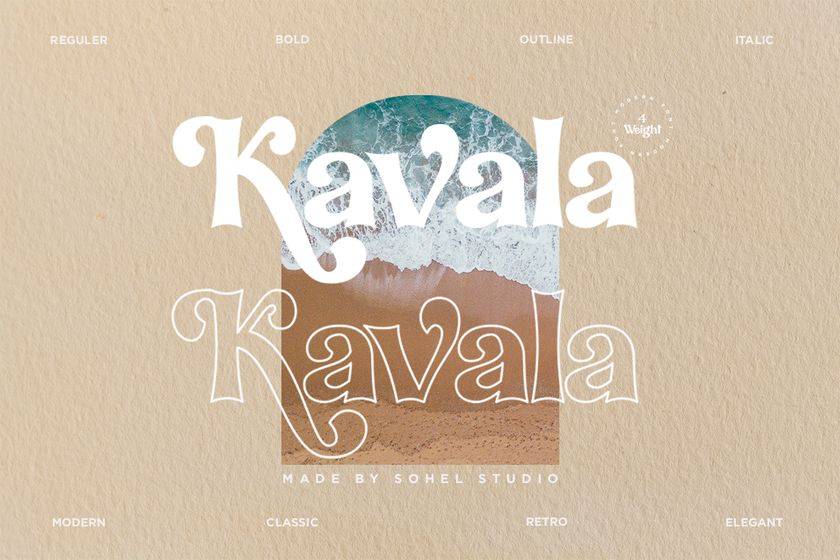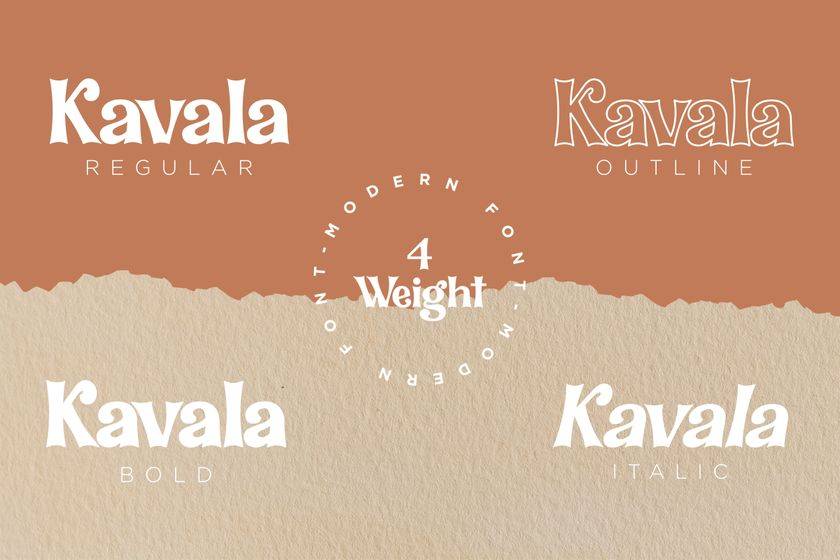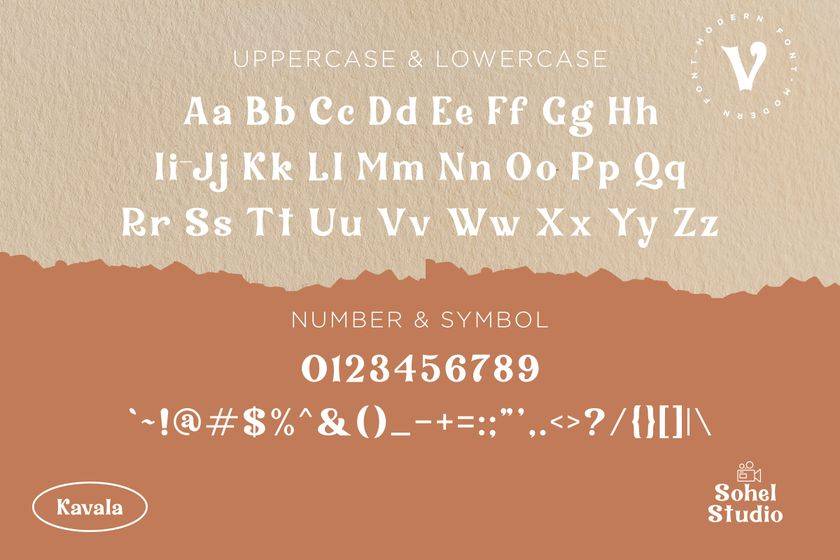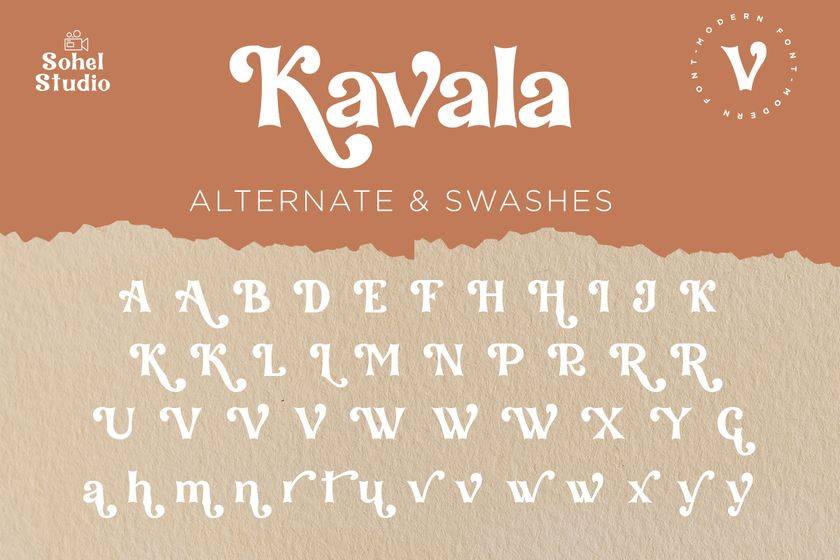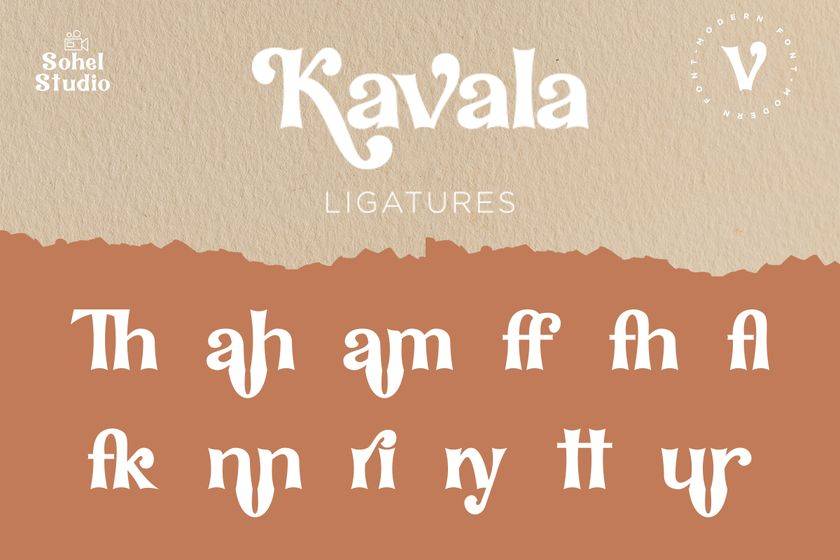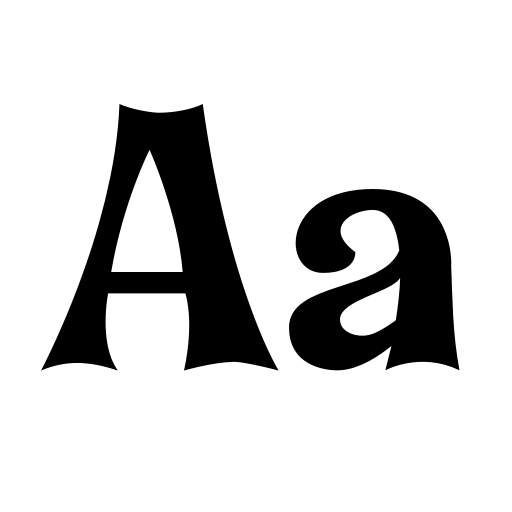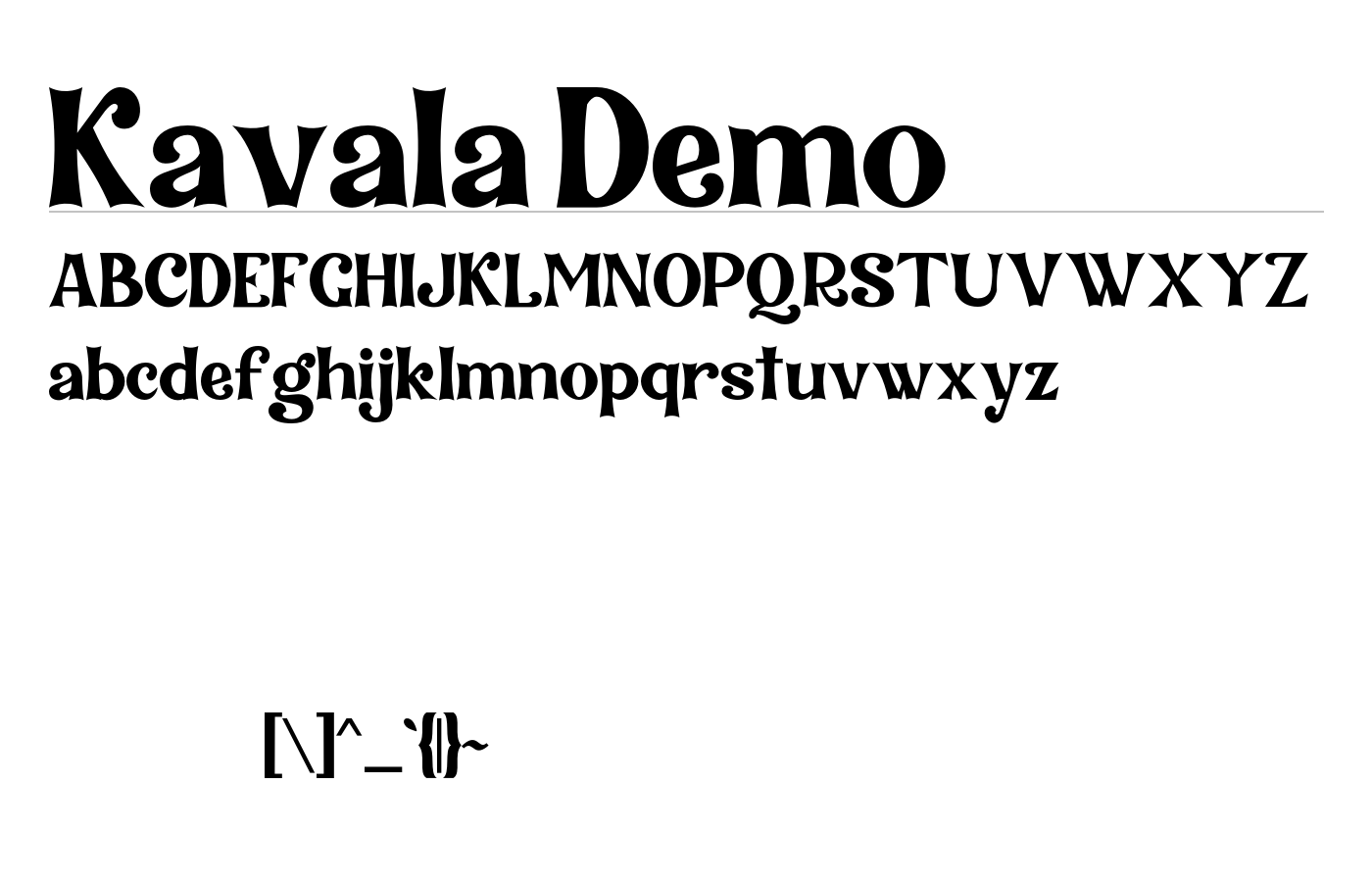
Kavala is a unique serif font with a playful yet slightly vintage vibe, characterized by its thick and thin stroke contrasts and distinctive flared serifs that add personality to each letter. Its upright, bold forms with quirky details make it ideal for eye-catching headlines, logos, and creative projects that seek a memorable and artistic feel. This font works best in designs needing a strong, characterful presence rather than long text blocks.